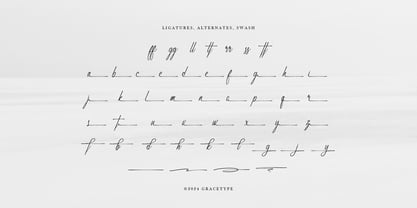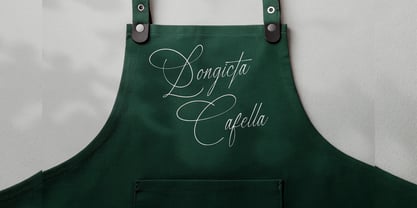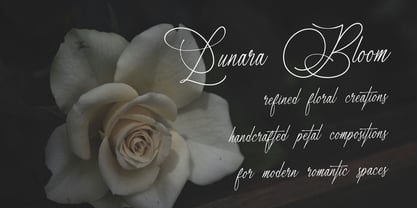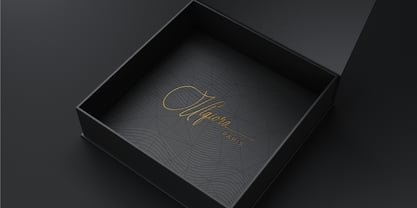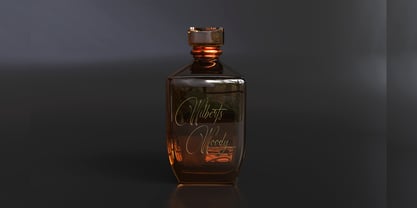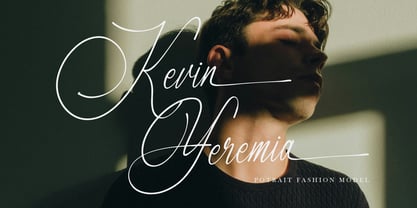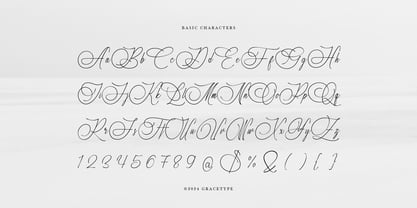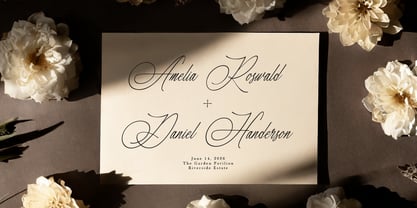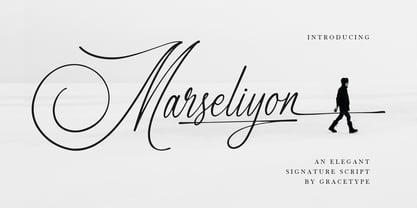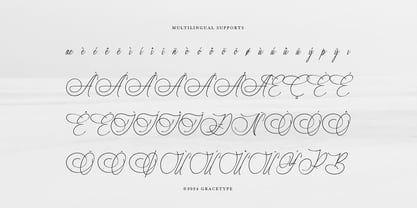
Marseliyon
Marseliyon | Elegant Signature Script, from Gracetypestudio, suitable for any projects such as: logos, branding projects, homeware designs, product packaging, mugs, quotes, posters, shopping bags, t-shirts, book covers, name card, invitation cards, greeting cards, label, photography, watermark, special events, and all your other lovely projects that need a Script taste.